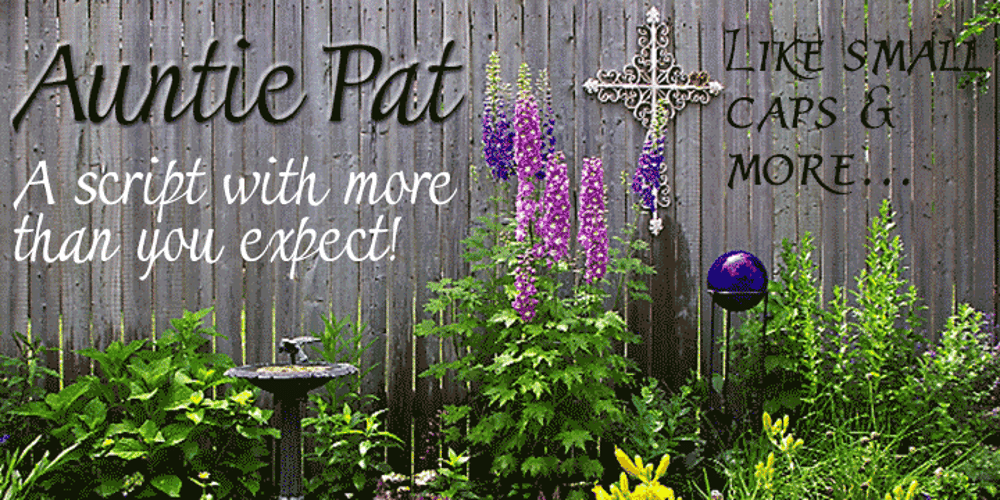
Auntie Pat
Auntie Pat font
Auntie Pat Font Family was designed by David Bergsland and published by Hackberry Font Foundry. Auntie Pat contains 1 styles and family package options. Auntie Pat is a new script font in my continuing objective of designing scripts that I can really use. Of course, I am looking for readability in booklets. In many ways, Auntie Pat is a very unusual script in that it has caps, lowercase, small caps with the appropriate figures for each case. This is font has all the OpenType features in the set for 2009. I didn’t bother with the CE accents (though I can add them upon request). There are several ligatures for your fun and enjoyment: bb gg ff fi fl ffi ffl ffy fj ft tt ty Wh Th and more. Like all of my fonts, there are: caps, lowercase, small caps, proportional lining figures, proportional oldstyle figures, & small cap figures, plus numerators, denominators, superiors, inferiors, and a complete set of ordinals 1st through infinity. Enjoy!